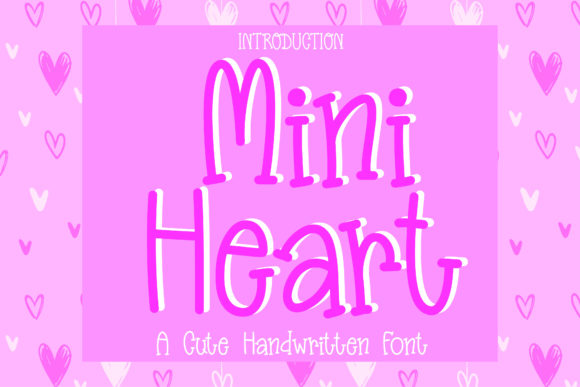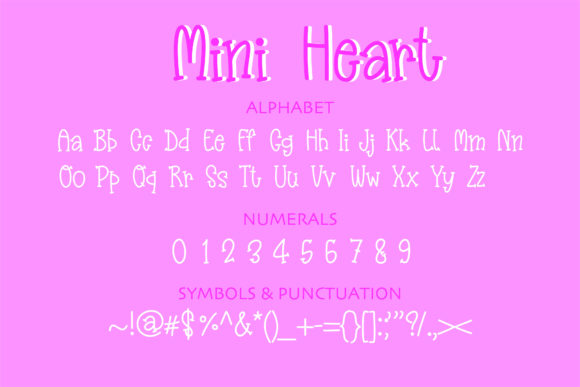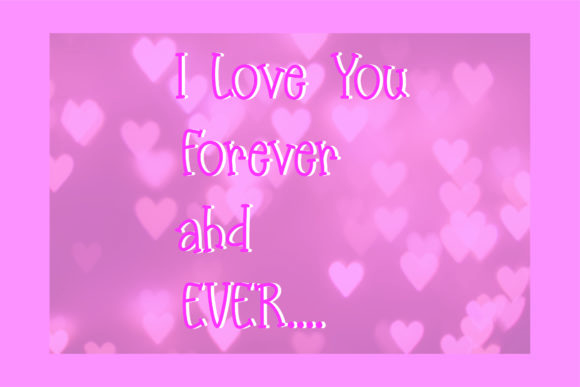
About Mini Heart Font
Mini Heart is a cute and thin lettered handwritten font. Its natural and unique style makes it incredibly fitting to a large pool of designs. The only limit is your imagination!